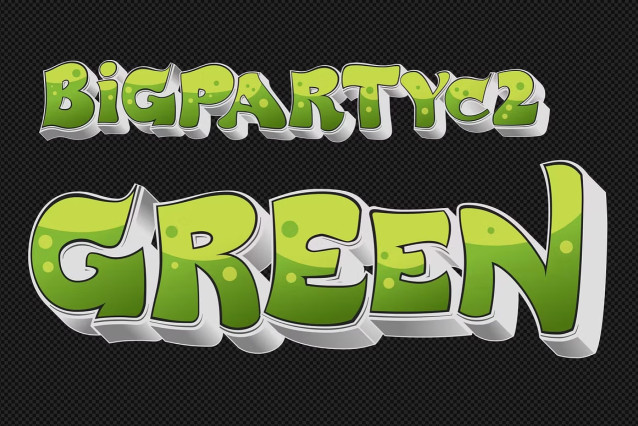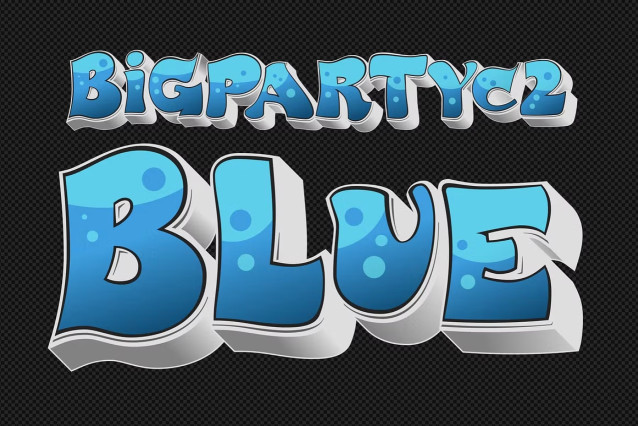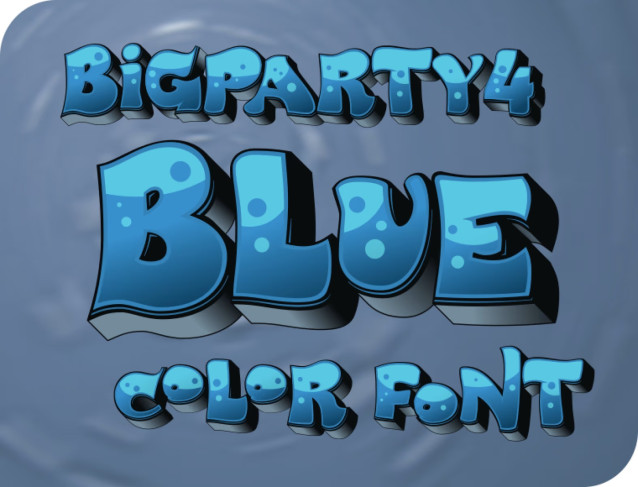
BigParty Font
BigParty Font – Decorative, color fonts : Blue, Red, Green, Orange & Rosa in OpenTypeSVG . To be able to use the color font you need to have installed Adobe Photoshop CC2017, Adobe Illustrator CC2018, Mozilla Fire­fox or Microsoft Edge.